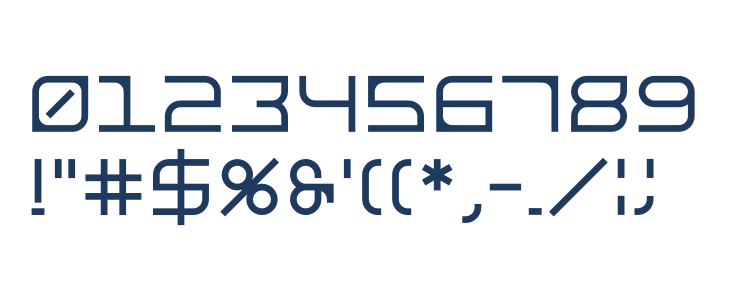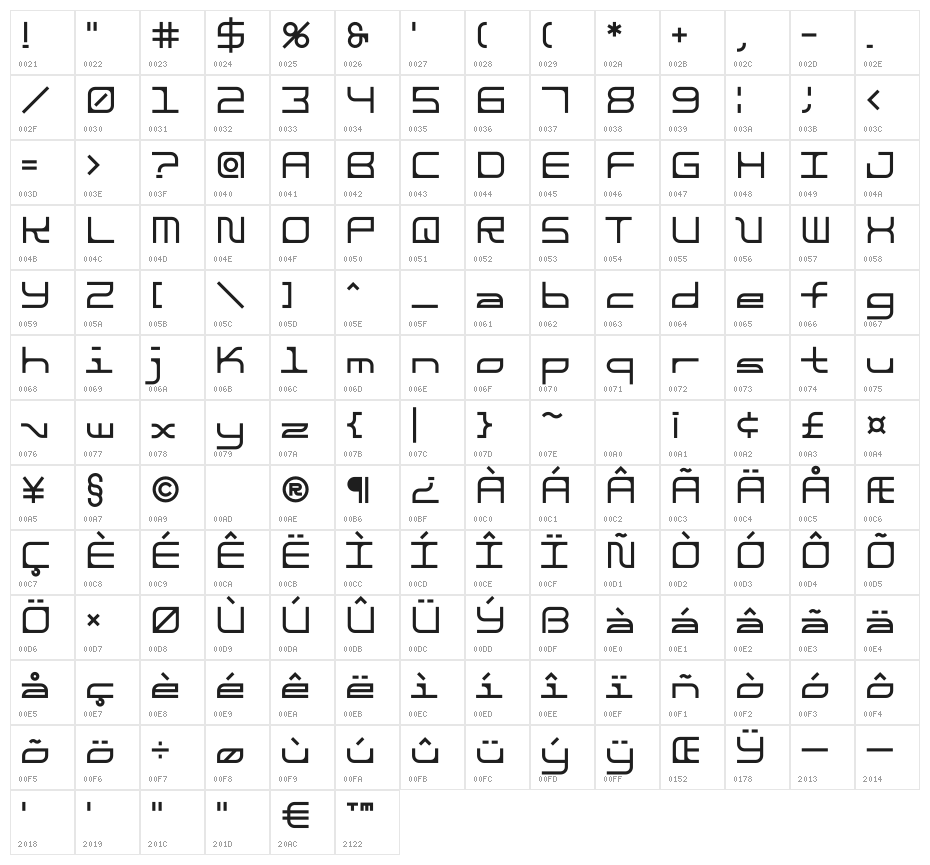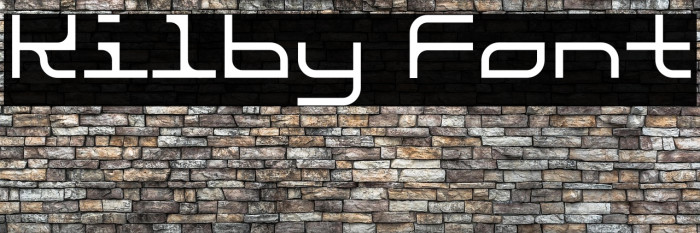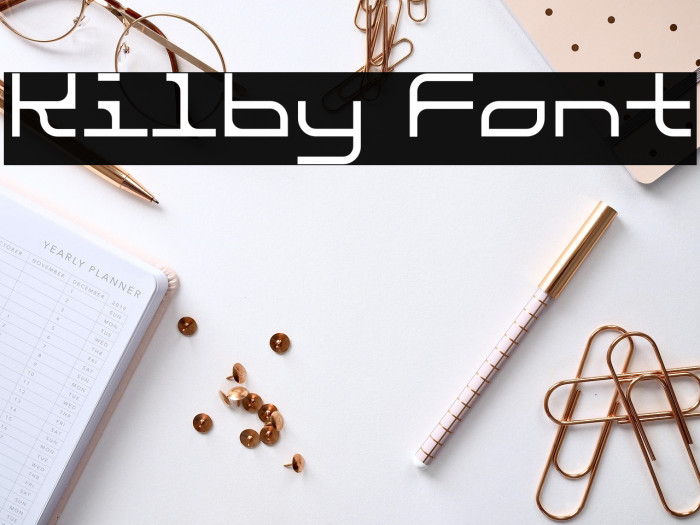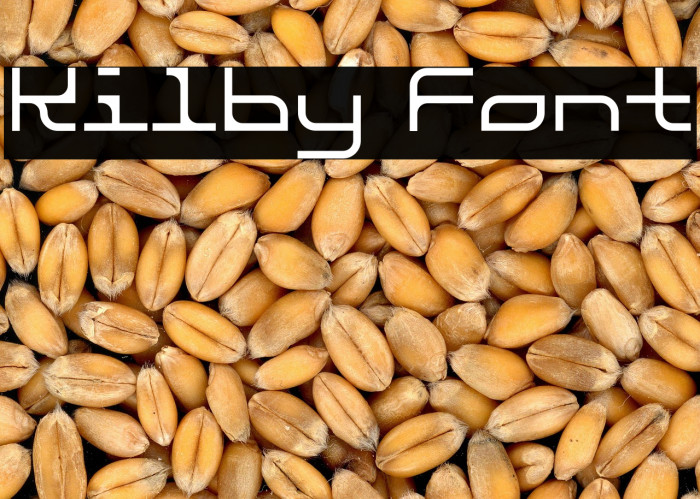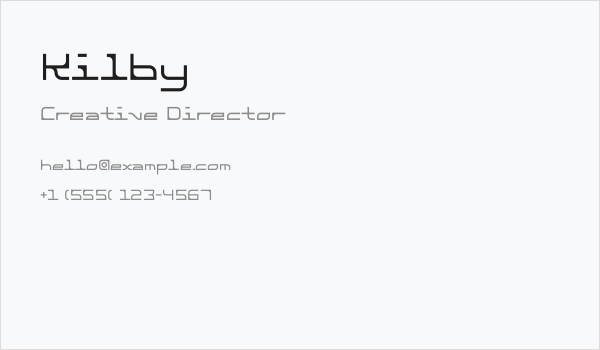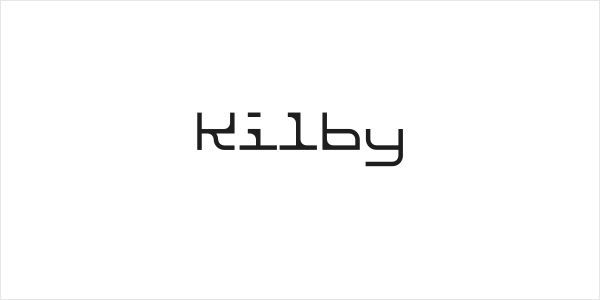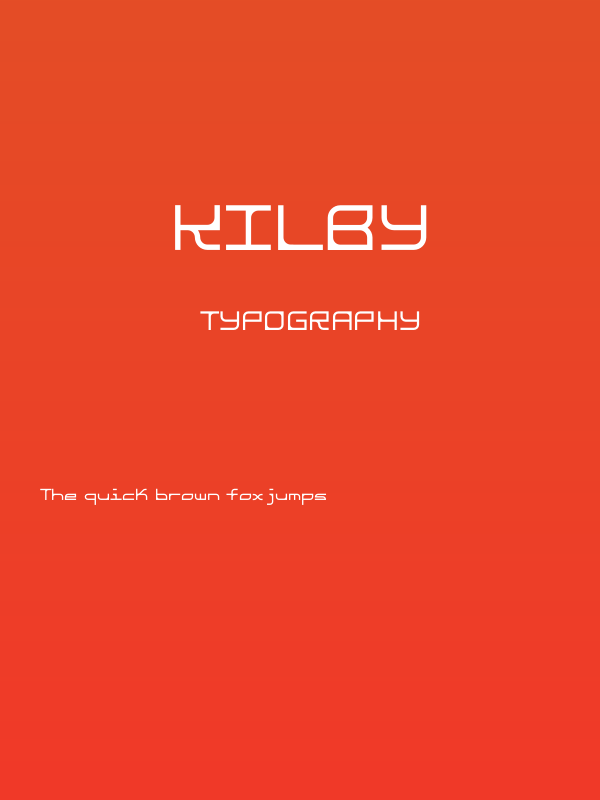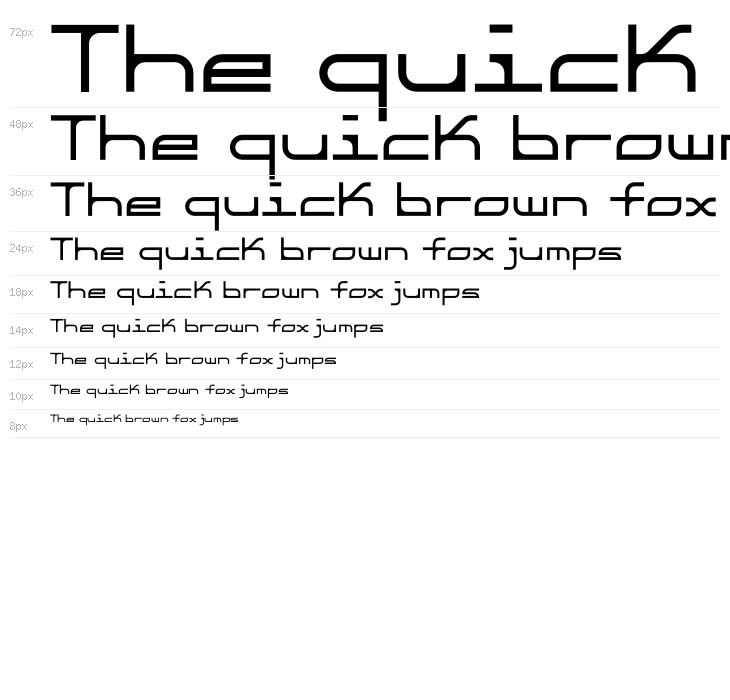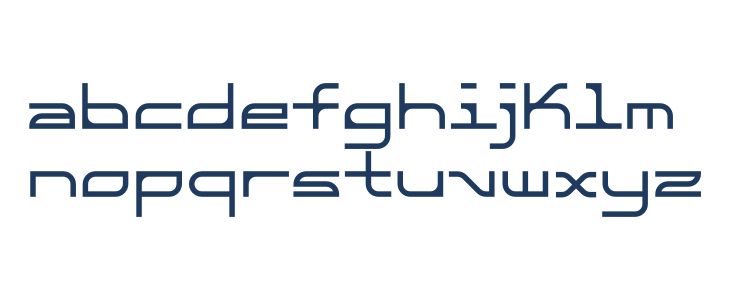
Kilby Font
Kilby Description
This font features a modern, geometric design with a clean and structured appearance. The characters are formed with consistent stroke widths, giving it a uniform and technical look. The uppercase letters are bold and angular, while the lowercase letters maintain a similar geometric style with slightly softer edges. The numerals are clear and distinct, matching the overall aesthetic of the alphabet. Special characters are designed to complement the alphanumeric characters, maintaining the same structured and precise style. This font is ideal for projects that require a contemporary and futuristic feel.
| Use Case | Headlines, Logos, Digital Interfaces |
| Proposed Projects | Ideal for technology branding, digital interfaces, modern posters, and futuristic designs. |